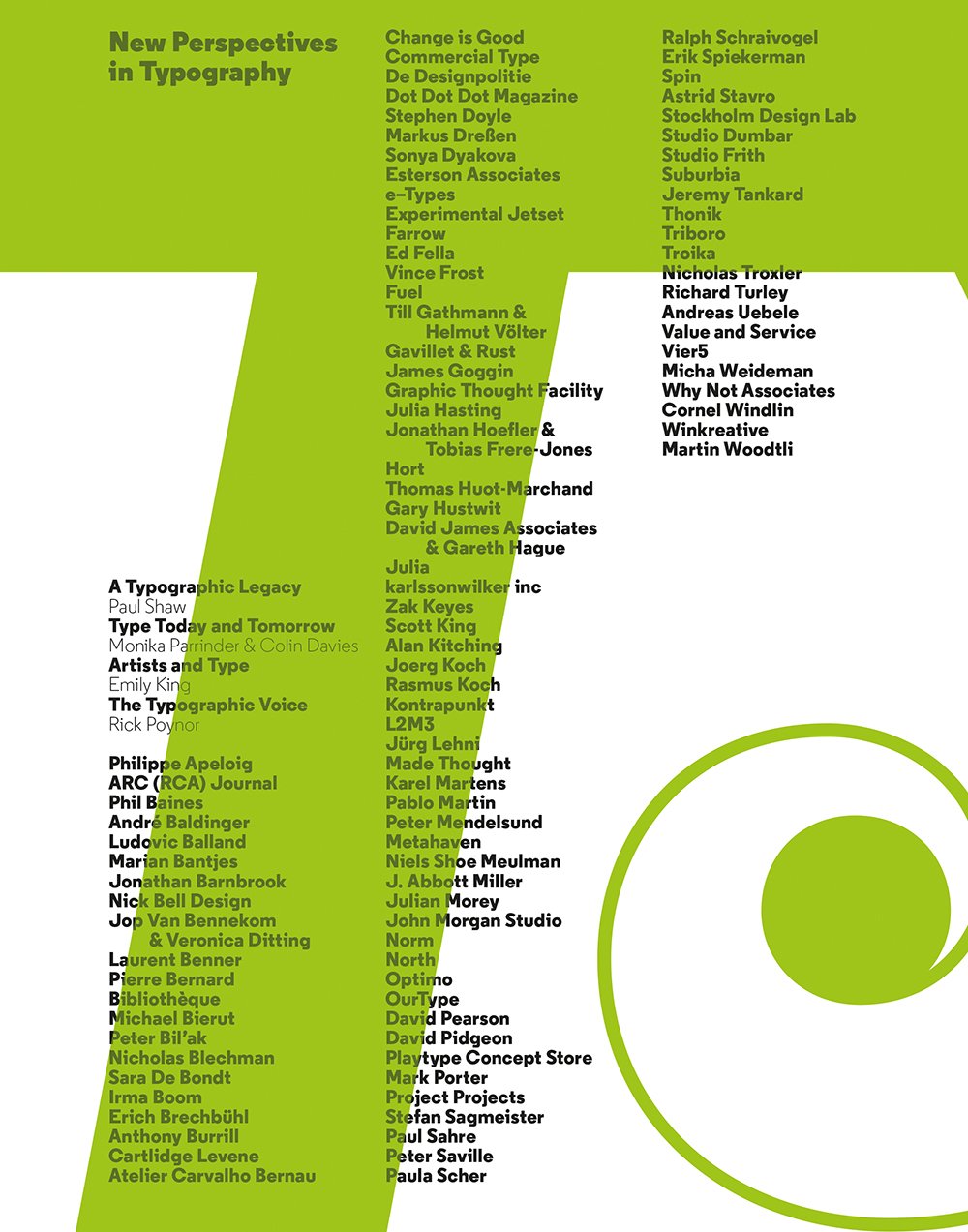
Type: New Perspectives in Typography
This A to Z survey of typographic design, edited by leading typographers A2/SW/HK, showcases more than 100 carefully selected contemporary designers, including the best examples of their current work, and also features an introduction by Rick Poynor.
Featured designers include Michael Bierut, Experimental Jetset, Scott King, Cornel Windlin, Hort, karlssonwilker inc., Stefan Sagmeister, Fuel, Gavillet & Rust, De Designpolitie and Richard Turley among others.
There are also essays by acclaimed design writers Emily King, Paul Shaw, Monika Parrinder and Colin Davies that explore the past and future of type design. This book will encourage and inspire the next generation of designers as well as provide a sourcebook for seasoned designers and educators.
A2/SW/HK is an independent typographic design studio based in London. Formed in 2000 by Henrik Kubel and Scott Williams, both graduates of the Royal College of Art, London. A2/SW/HK's portfolio has won international recognition including awards from Tokyo Type Directors Club, Type Directors Club of New York, D&AD, ISTD and Graphis. Recent clients include Aperture Magazine, The Independent Newspaper, The New York Times Magazine, Expedia, Google and Moscow Metro.Their work has been featured in leading design magazines such as eye magazine, Novum, Creative Review, Communication Arts and Idea magazine. Williams and Kubel lecture internationally and both are members of AGI, Alliance Graphique Internationale.